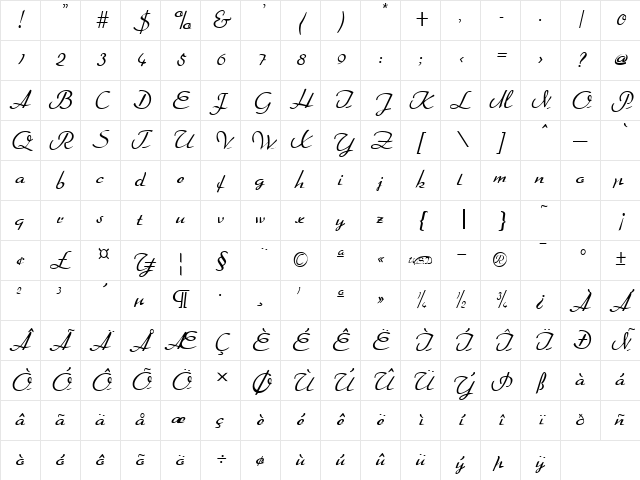
Complete Dahrlin Regular glyph index. Displaying only characters natively supported by Dahrlin Regular font.
Dahrlin is a composed and adaptable typeface that performs quietly and consistently across a wide range of design contexts.